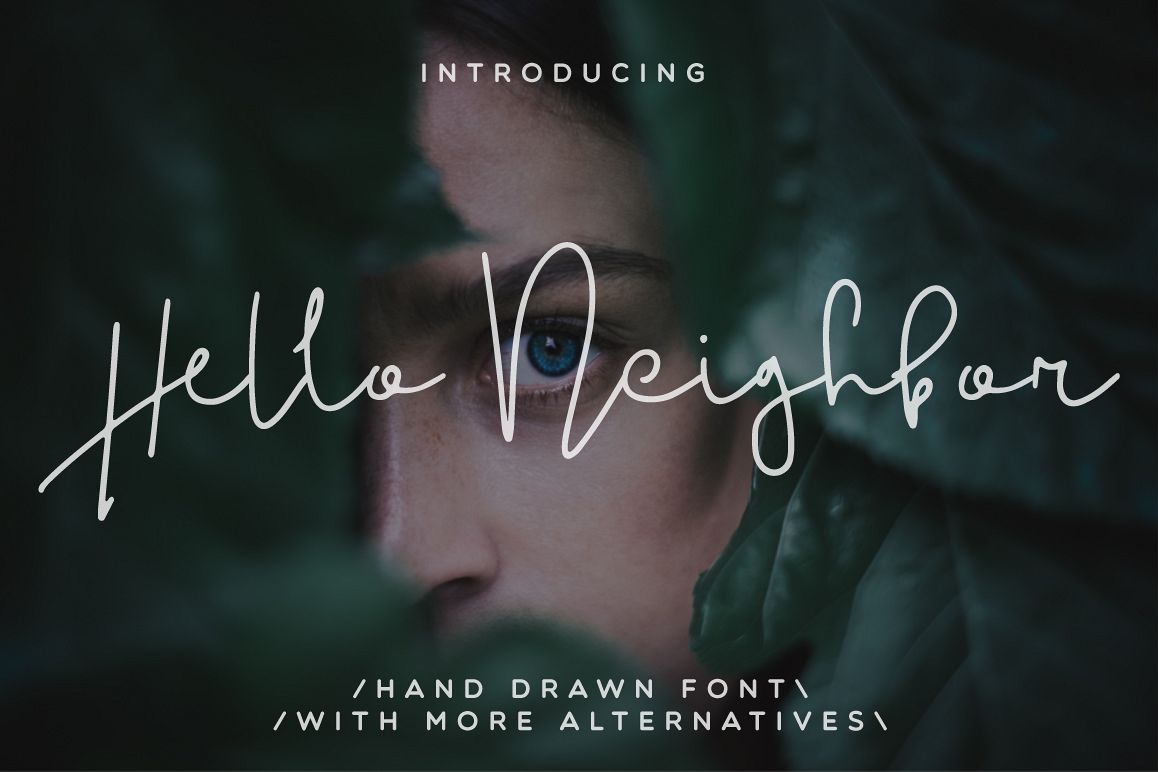
Hello Neighbor Script
Introducing: Hello Neighbor! A handwritten modern font with signature style and quick strokes. Also this font included alternative letters. Very suitable for greeting cards, branding materials, business cards, quotes, posters, and more!